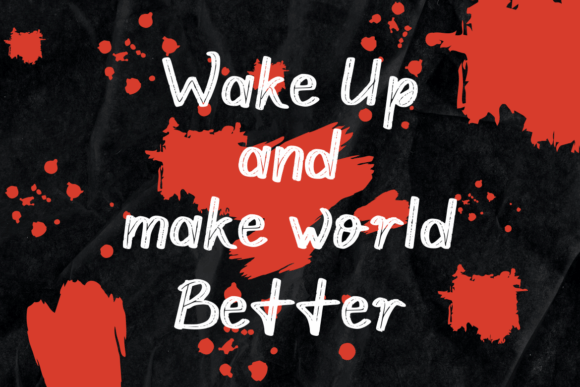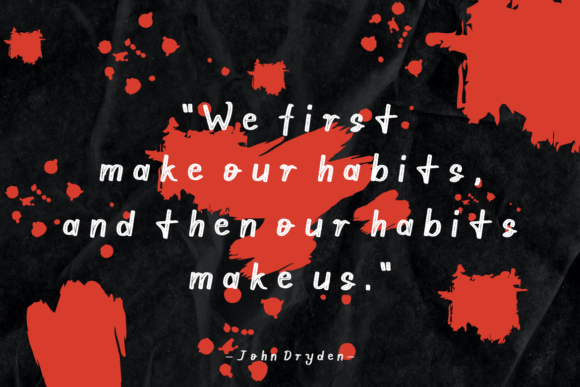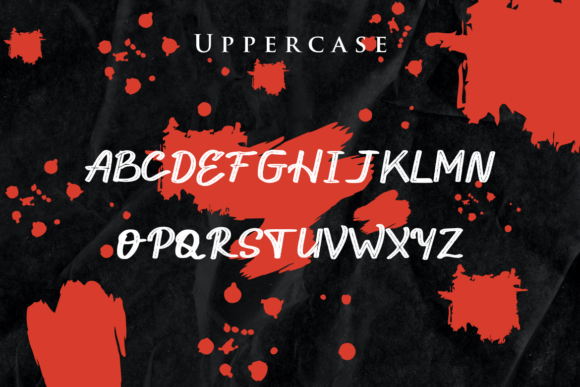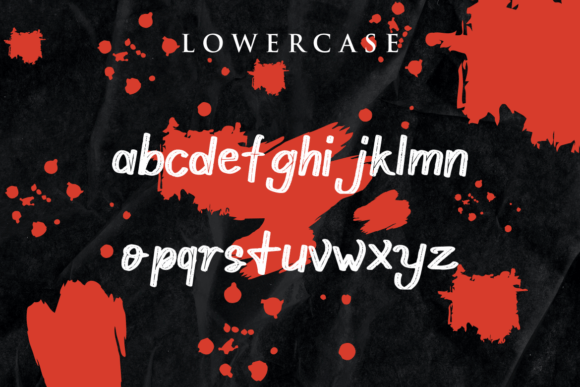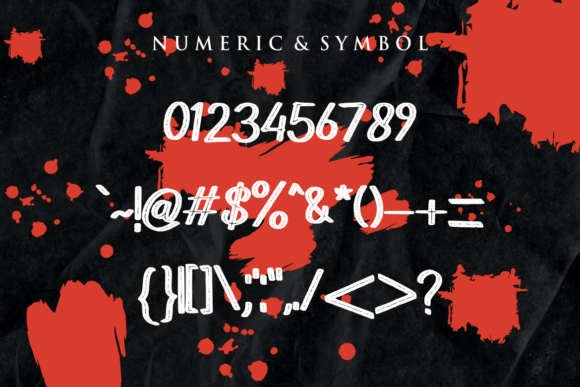
Conquer Font
About Conquer Font
The Conquer Font Download is a bold handwriting brush typeface designed with an authentic, handcrafted touch. Featuring powerful brush strokes and sharp details, Conquer was created to make your designs stand out with strength and originality. Its rugged yet stylish appearance adds a modern edge that works beautifully across a wide range of design projects.
This typeface comes complete with uppercase and lowercase letters, numbers, punctuation, and symbols, making it highly versatile and practical for all kinds of creative needs. With its raw energy and commanding presence, Conquer is the perfect choice for titles, posters, product packaging, and digital branding.
Features of Conquer Font
• Bold handwriting brush style with authentic, rough strokes
• Complete character set – uppercase, lowercase, numerals, punctuation, and symbols
• Sharp, strong lines that bring confidence to your designs
• Versatility across print, digital, and merchandise projects
• Dynamic personality that delivers originality and impact
Best Uses for Conquer Font
The Conquer Font Download is ideal for designers who want to create bold and unforgettable work. Popular applications include:
• Titles and typography – Strong brush strokes that make headlines pop
• Posters and flyers – Energetic designs for concerts, events, or promotions
• Magazines and brochures – Modern layouts with bold, artistic typography
• Logos and branding – Perfect for edgy, lifestyle, or streetwear-inspired identities
• Product packaging – Stylish labels for beverages, apparel, or artisanal goods
• Websites and digital graphics – Add striking visual appeal to banners and hero text
• Event promotions – Flyers and signage that demand attention instantly
Why Choose Conquer Font
The Conquer Font Download is more than just a handwriting brush typeface—it’s a design tool that captures strength, authenticity, and energy. Its handcrafted strokes give it a unique look that sets it apart from generic brush fonts, while its carefully balanced structure ensures excellent readability.
Designers value Conquer for its ability to convey boldness without sacrificing clarity. It works equally well in professional branding, artistic projects, and personal creations. Whether you’re creating large-format posters or small product labels, Conquer brings the same sense of originality and visual power.
The Conquer Font Download is a bold handwriting brush font designed to transform your projects with sharpness, strength, and creativity. With its complete set of characters, rugged texture, and versatile usability, it’s perfect for posters, packaging, websites, magazines, and more.